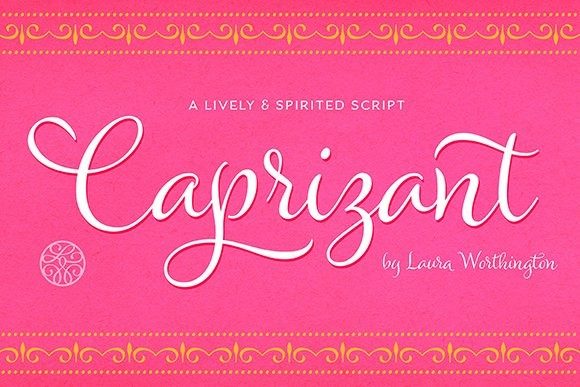
Step into the world of Caprizant Family Font, a creation of the renowned Laura Worthington, where elegance meets energy. This lively upright script, inspired by the strokes of a pointed pen, embodies the beauty of handwritten letters. Prepare to be captivated by its charm and versatility.
With Caprizant, readability is never compromised, even at smaller sizes. Its understated nature makes it ideal for short blocks of body copy, where it seamlessly mimics the allure of exquisite handwriting. Experience the authenticity of human variation through the alternates of every letter and the abundance of ligatures, ensuring a convincingly natural look.
For display settings, titles, and identity work, Caprizant truly shines. With its 392 swash characters, two sets of alternate capitals, and an array of ornaments, it exudes an aura of sophistication and elegance. Its disconnected version lends a casual touch, allowing you to strike a balance between formality and playfulness.